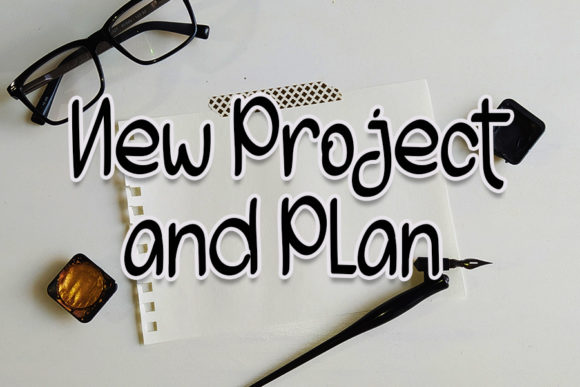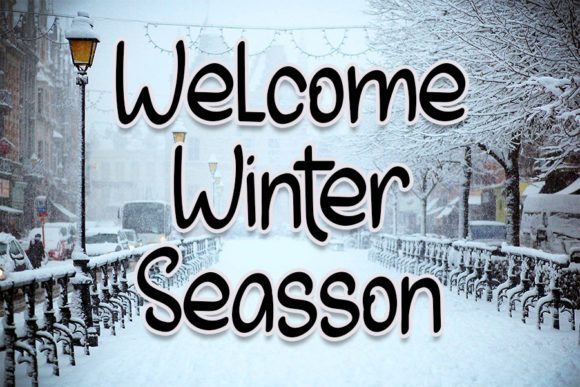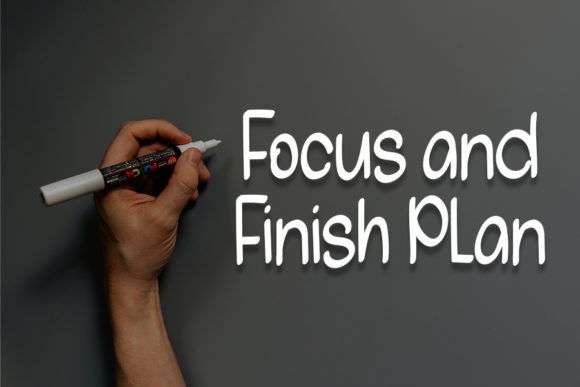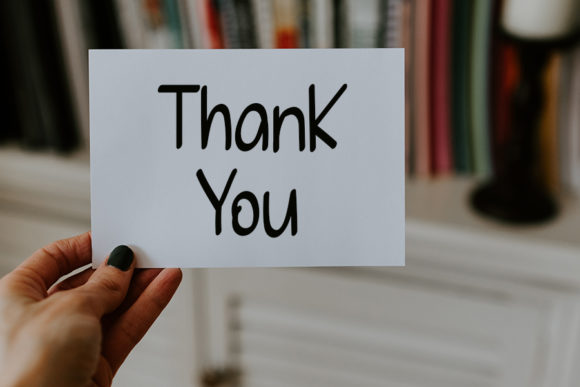
Happy New Year Font: Elevate Your Crafting Projects with Elegance and Trendy Style
As the clock strikes midnight on New Year’s Eve, we bid adieu to the old and welcome the new with open arms. The spirit of celebration and renewal is palpable, and what better way to express it than through creative projects that showcase your personal style? If you’re a designer or crafter looking to add a touch of sophistication and modernity to your work, look no further than the Happy New Year Font.
What is Happy New Year Font?
Happy New Year is a sweet and simple handwritten font that exudes elegance and trendiness. Its carefully crafted characters are designed to add a personal touch to your crafting projects, making them stand out from the crowd. Whether you’re working on a New Year’s-themed card, invitation, or decoration, this font is sure to impress.
Key Features of Happy New Year Font
- Elegant and Trendy Characters: The Happy New Year Font boasts a unique and stylish character set that’s perfect for creating visually appealing projects.
- Handwritten Style: The font’s handwritten style gives it a personal and organic feel, making it ideal for crafters and designers who want to add a touch of warmth to their work.
- Simple yet Impactful: The font’s simplicity is its strength, allowing you to create stunning projects without overwhelming your audience.
- Versatile: The Happy New Year Font can be used for a wide range of crafting projects, from cards and invitations to decorations and social media graphics.
Why Choose Happy New Year Font?
With so many fonts available, why choose Happy New Year Font for your crafting projects? Here are just a few reasons:
- Unique and Eye-catching: The font’s distinctive style is sure to grab attention and set your projects apart from the rest.
- Easy to Read: The font’s clear and legible characters ensure that your message is conveyed clearly, making it perfect for projects that require a personal touch.
- Customizable: The Happy New Year Font can be easily customized to fit your project’s theme and style, allowing you to experiment with different colors, sizes, and effects.
Tips for Using Happy New Year Font
To get the most out of Happy New Year Font, here are some tips to keep in mind:
- Pair it with Other Fonts: Experiment with pairing Happy New Year Font with other fonts to create a unique and visually appealing combination.
- Experiment with Colors: Try out different colors and gradients to add depth and interest to your projects.
- Use it for Headings and Titles: The Happy New Year Font is perfect for headings and titles, adding a touch of elegance and sophistication to your projects.
In conclusion, the Happy New Year Font is a versatile and stylish addition to any designer’s or crafter’s toolkit. Its elegant and trendy characters make it perfect for creating stunning crafting projects that showcase your personal style. Whether you’re working on a New Year’s-themed project or simply want to add a touch of sophistication to your work, this font is sure to impress. So why wait? Download Happy New Year Font today and take your crafting projects to the next level!